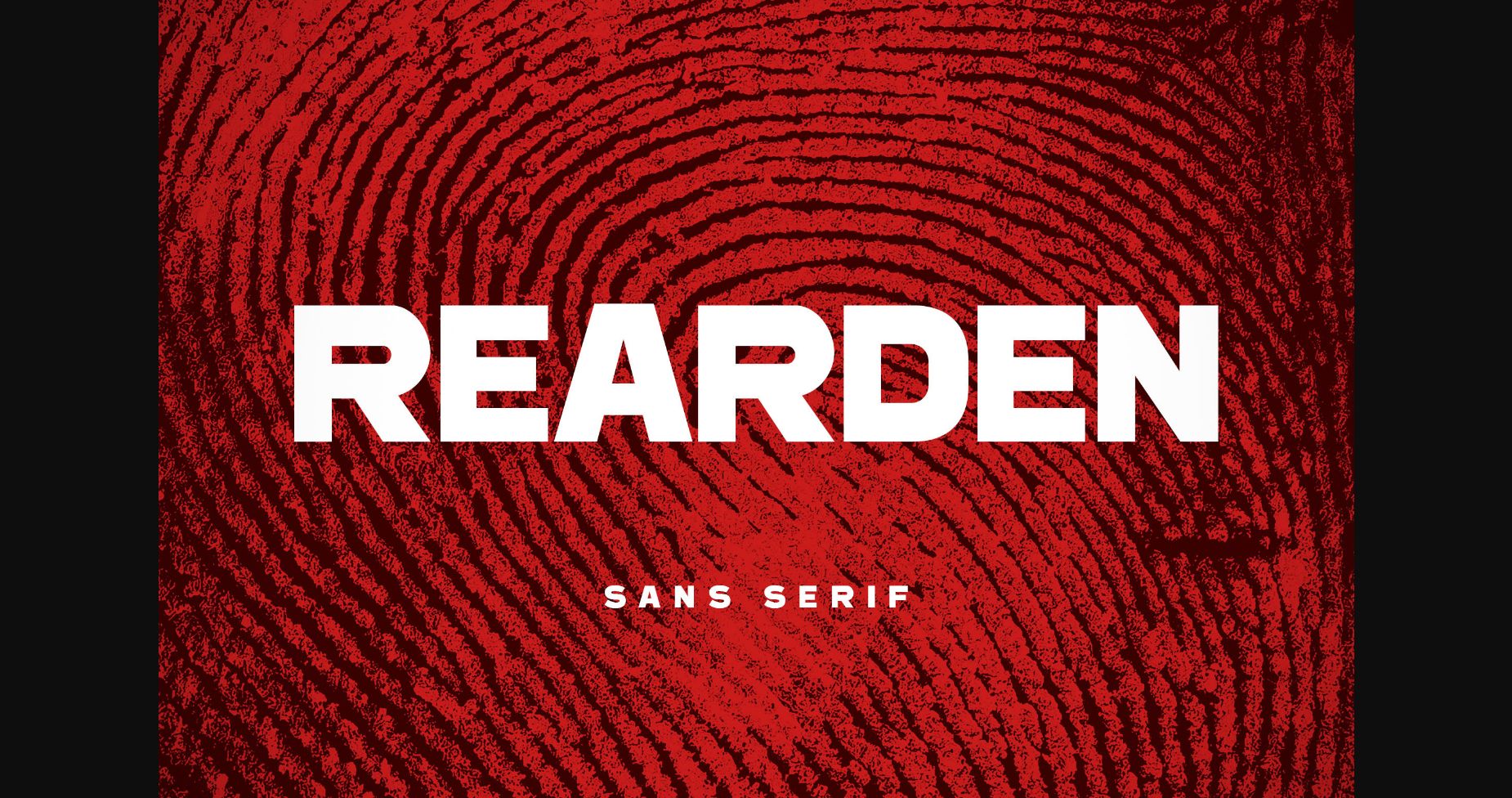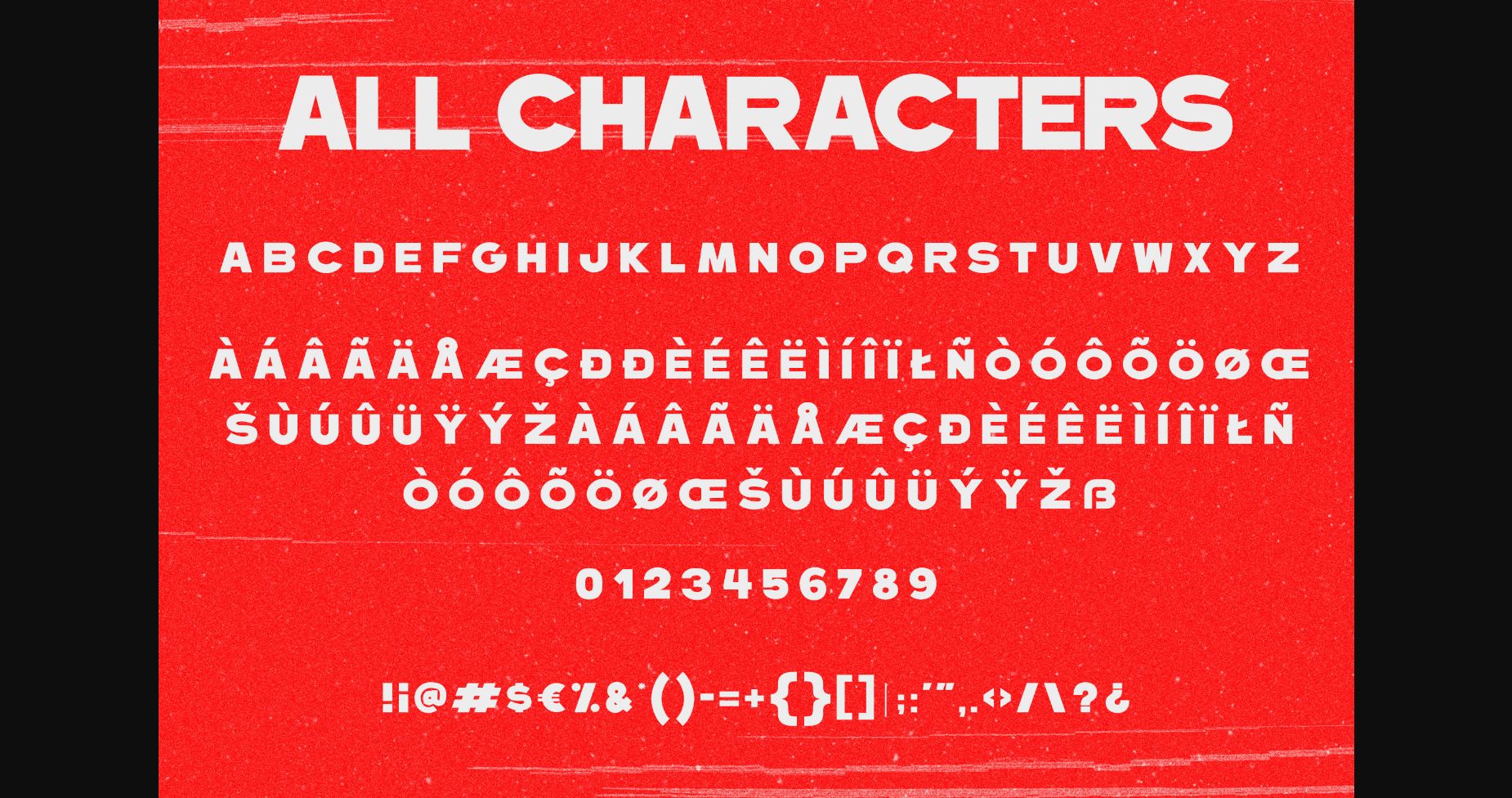
About Rearden Font
Rearden is an elegant and modern sans serif font. This minimalist and clean vibe can easily apply to your favorite designs such as book covers, magazines, social media posts, invitations, and so much more!